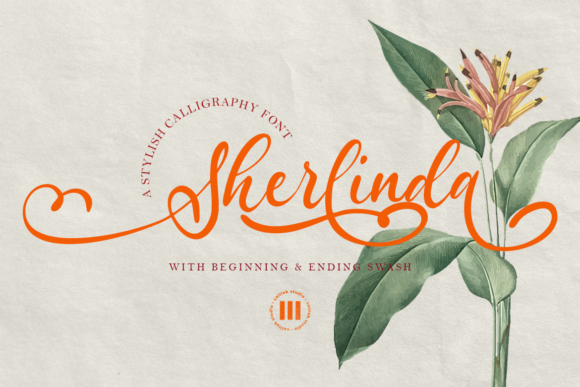
Embark on an enchanting journey with Sherlinda Font, an exquisite script font that exudes elegance and charm. Step into a world of creativity where delicate curves intertwine, whispering tales of love, magic, and timeless beauty.
At first glance, Sherlinda captivates with its graceful strokes and flowing lines, reminiscent of a calligrapher's masterful hand. Crafted with meticulous attention to detail, each letter dances across the page, telling stories of elegance and sophistication.
Dive into the enchanting world of Sherlinda and discover a boundless realm of possibilities. Ideal for crafting personalized invitations, greeting cards, logos, and website designs, this font breathes life into your creative expressions. Witness the transformation as ordinary words morph into captivating masterpieces, leaving an unforgettable impression on all who behold them.
Unleash your creativity and embrace the versatility of Sherlinda. Whether you seek to add a touch of whimsical charm to your digital designs or desire a font that effortlessly evokes a sense of timeless elegance, Sherlinda stands ready to fulfill your every creative desire.
But wait, there's more! Sherlinda comes equipped with a treasure trove of glyphs and swashes, accessible with ease through PUA encoding. Explore a world of hidden gems, where hearts intertwine, flourishes dance, and delicate ornaments adorn your creations, elevating them to new heights of beauty.
Immerse yourself in the world of Sherlinda Font, where dreams are crafted into reality. Let your imagination soar as you embark on a creative adventure, transforming your digital designs into works of art. Embrace the magic of Sherlinda today and unlock a world of endless possibilities.